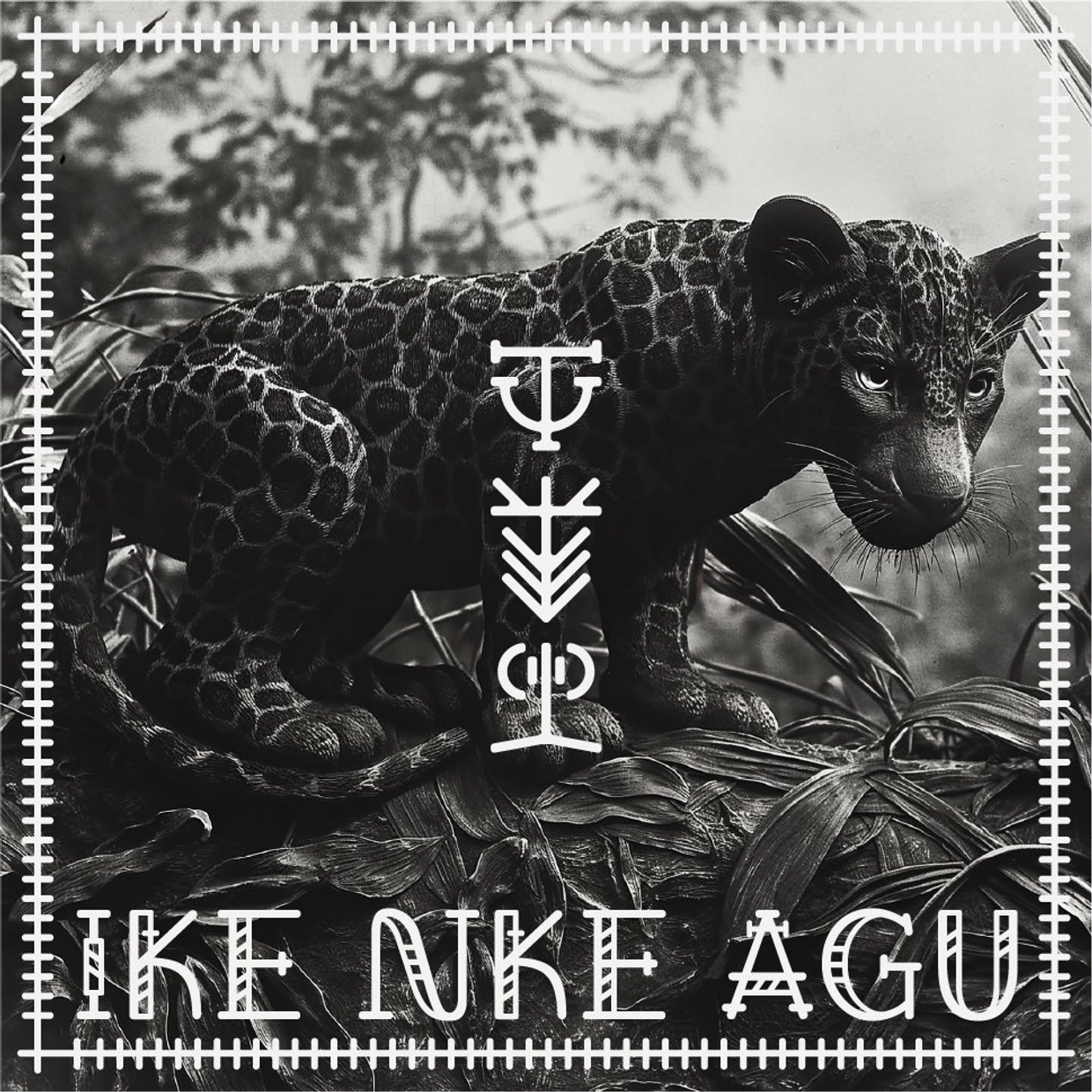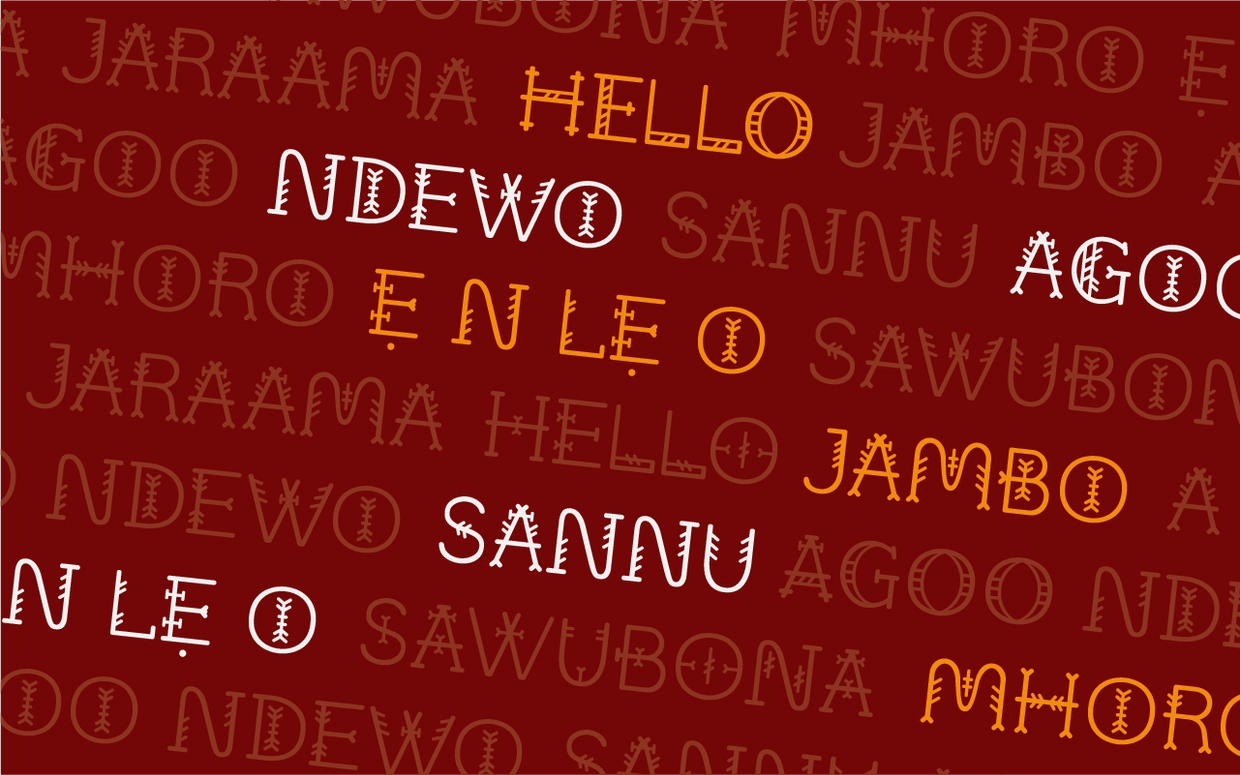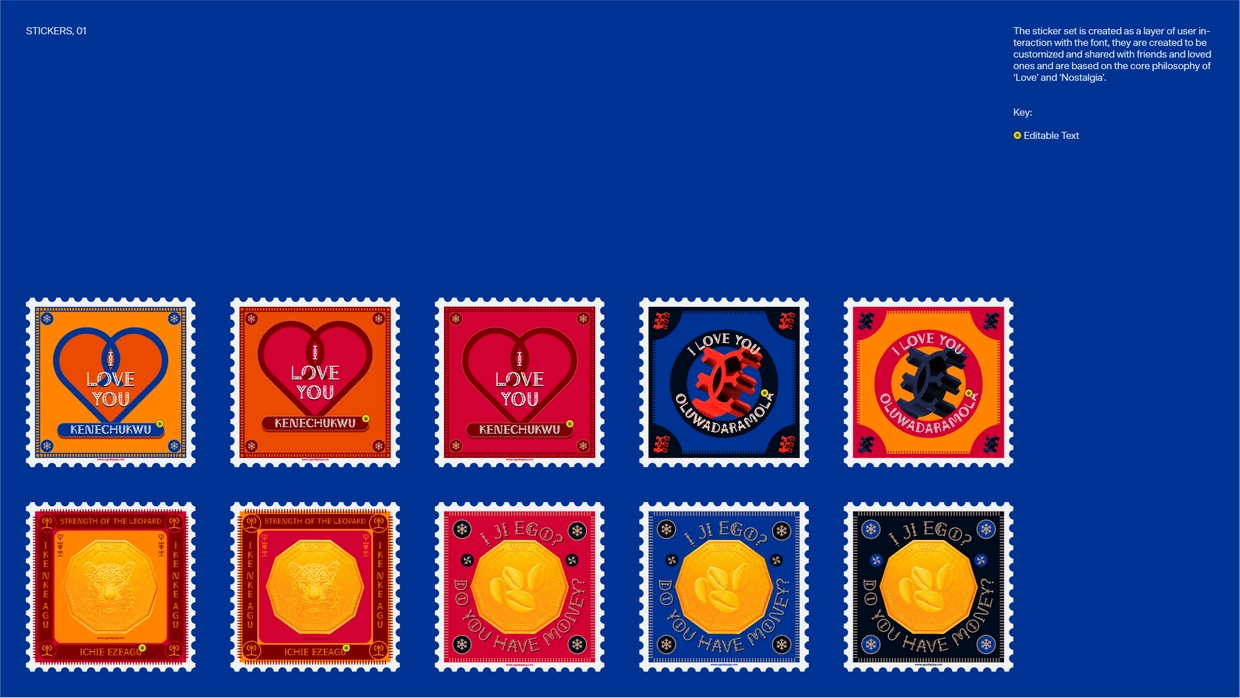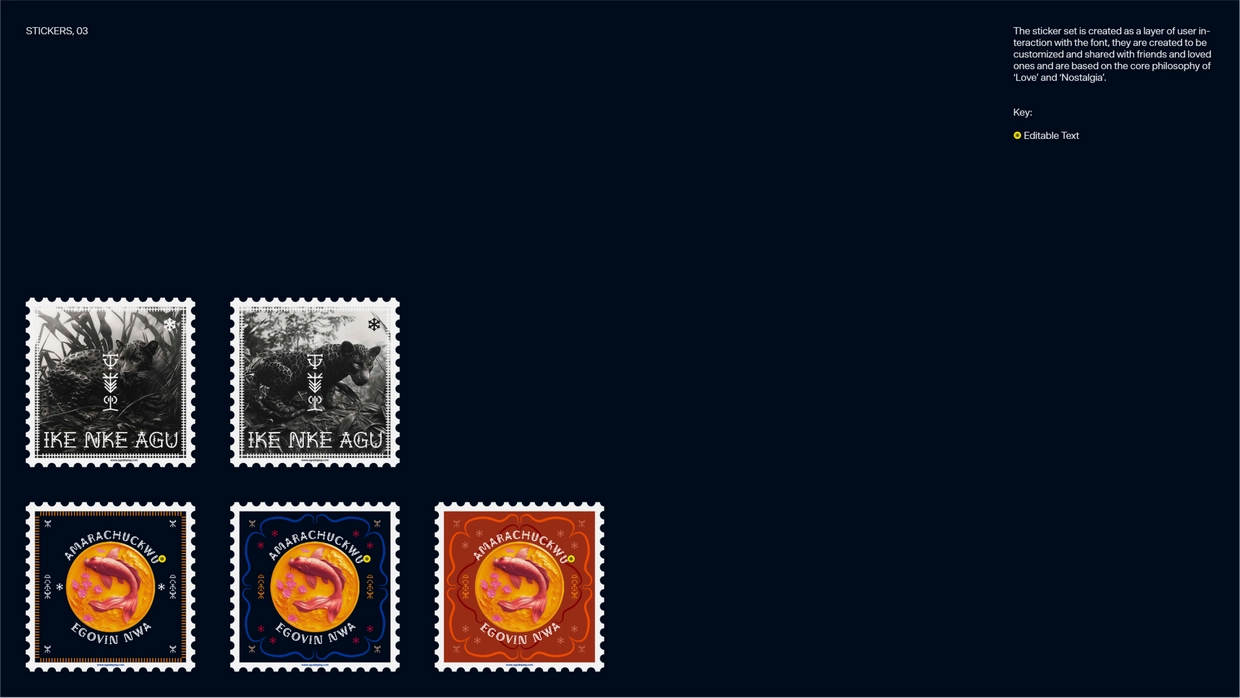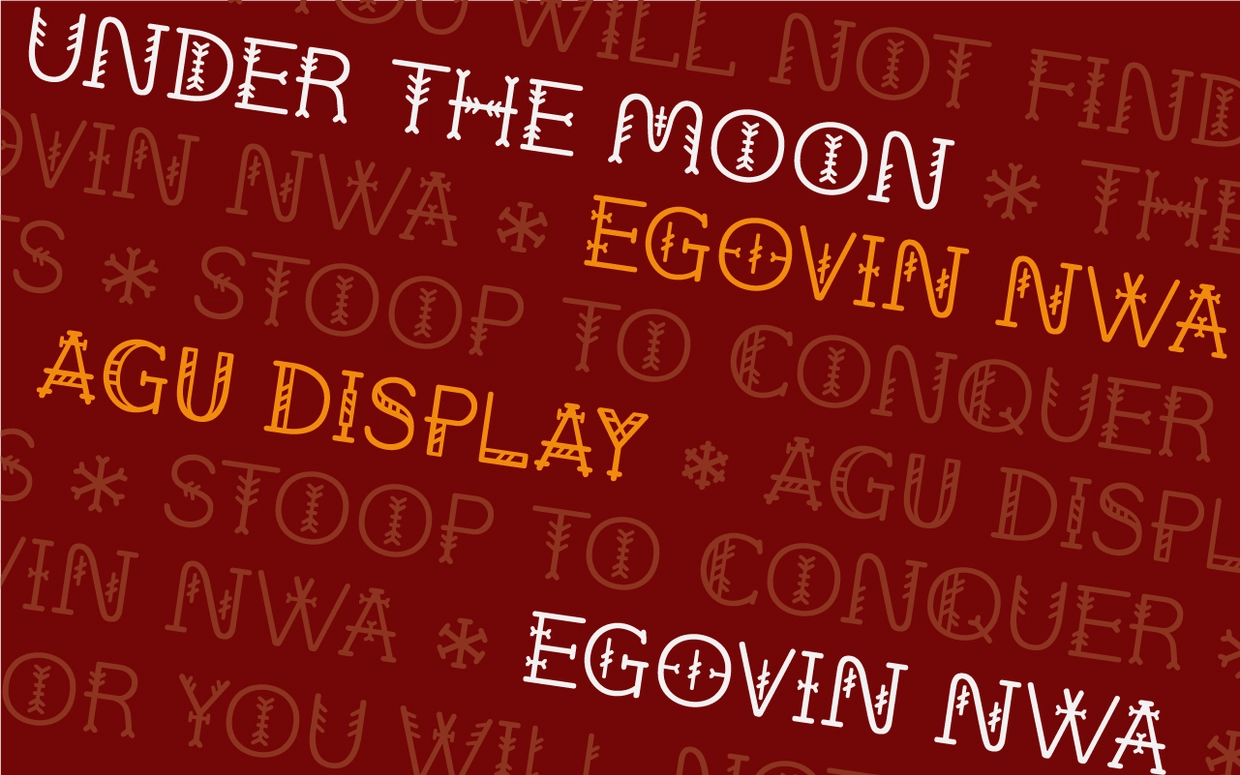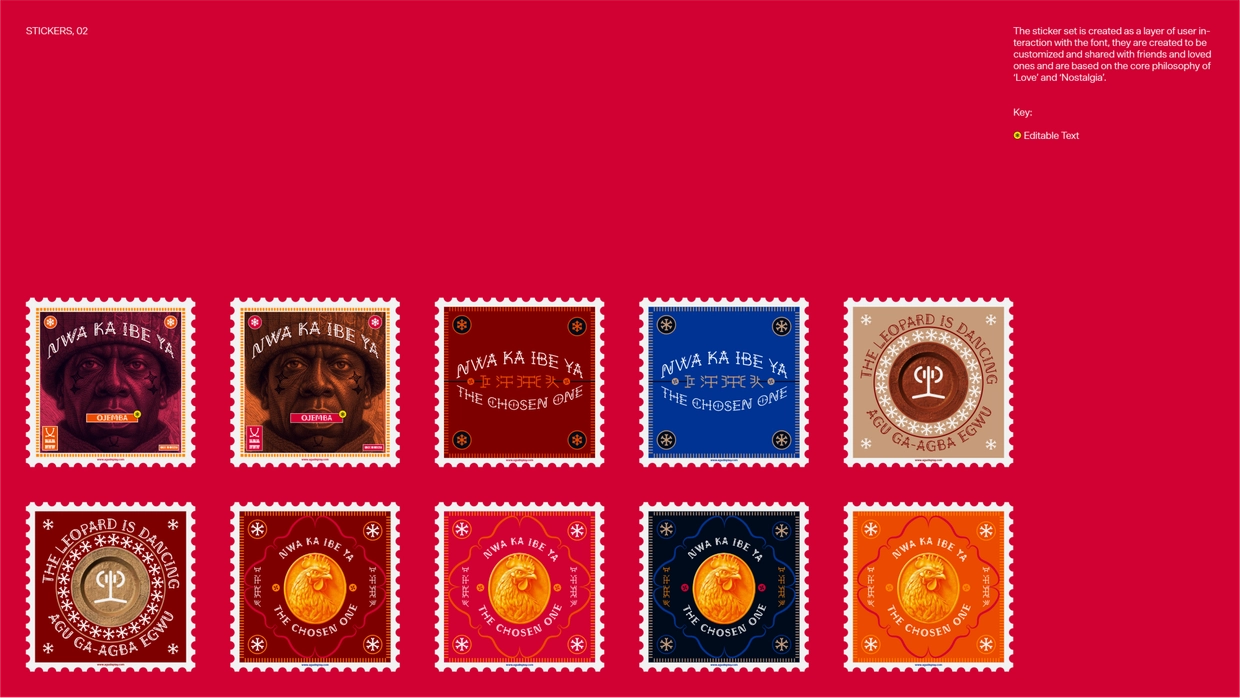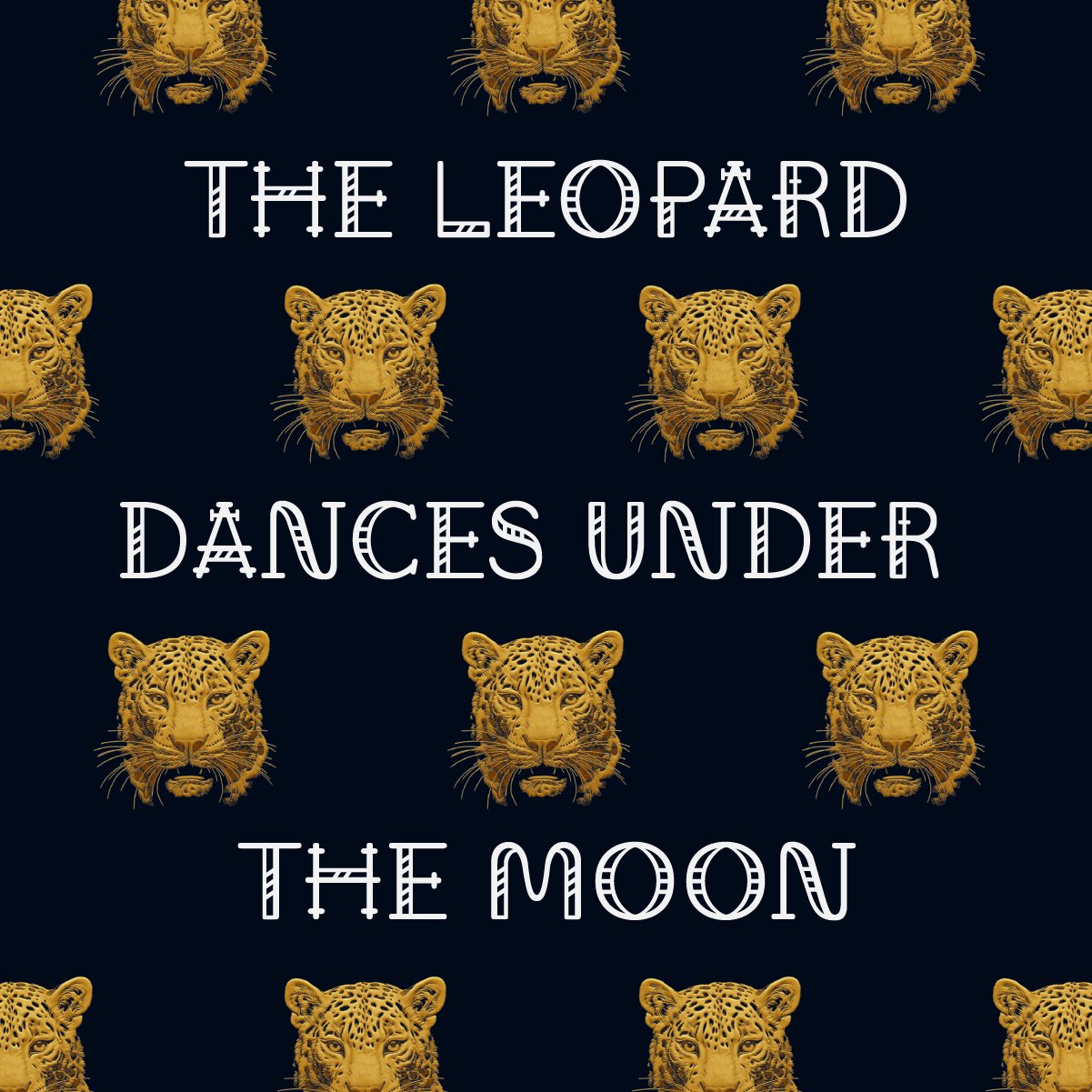
This new typeface by Seun Badejo combines centuries-old African mystique with cutting-edge type design. Seun led a specialized team of language and copywriting specialists in creating Agụ Display, a groundbreaking typeface for Google Fonts based on the Nsibidi writing system, while collaborating with and receiving guidance from Google Fonts’ internal type design team, and pioneering a first-of-its-kind morphing substitution variable font axis.
Recently, Seun celebrated a monumental achievement: the release of his first typeface, Agụ Display, in collaboration with Google Fonts (@googlefonts). Agụ Display is a decorative, rounded, sans-serif display font, Agụ Display features a morphing substitution axis, giving its letters a dynamic, dance-like quality. Drawing inspiration from the Nsibidi symbols of West Africa—a writing system steeped in the history of Nigeria’s Cross River region and extending into Cameroon—Agụ Display injects ancient heritage with modern design.